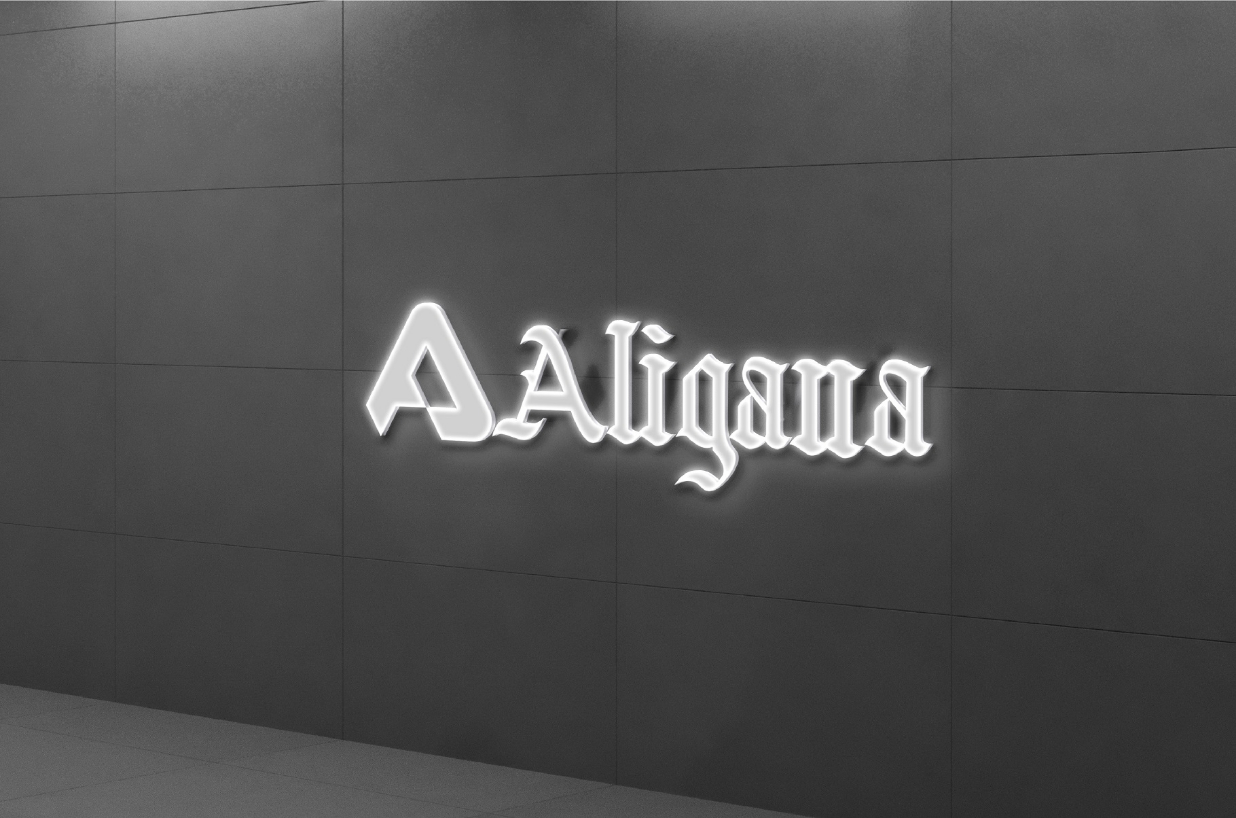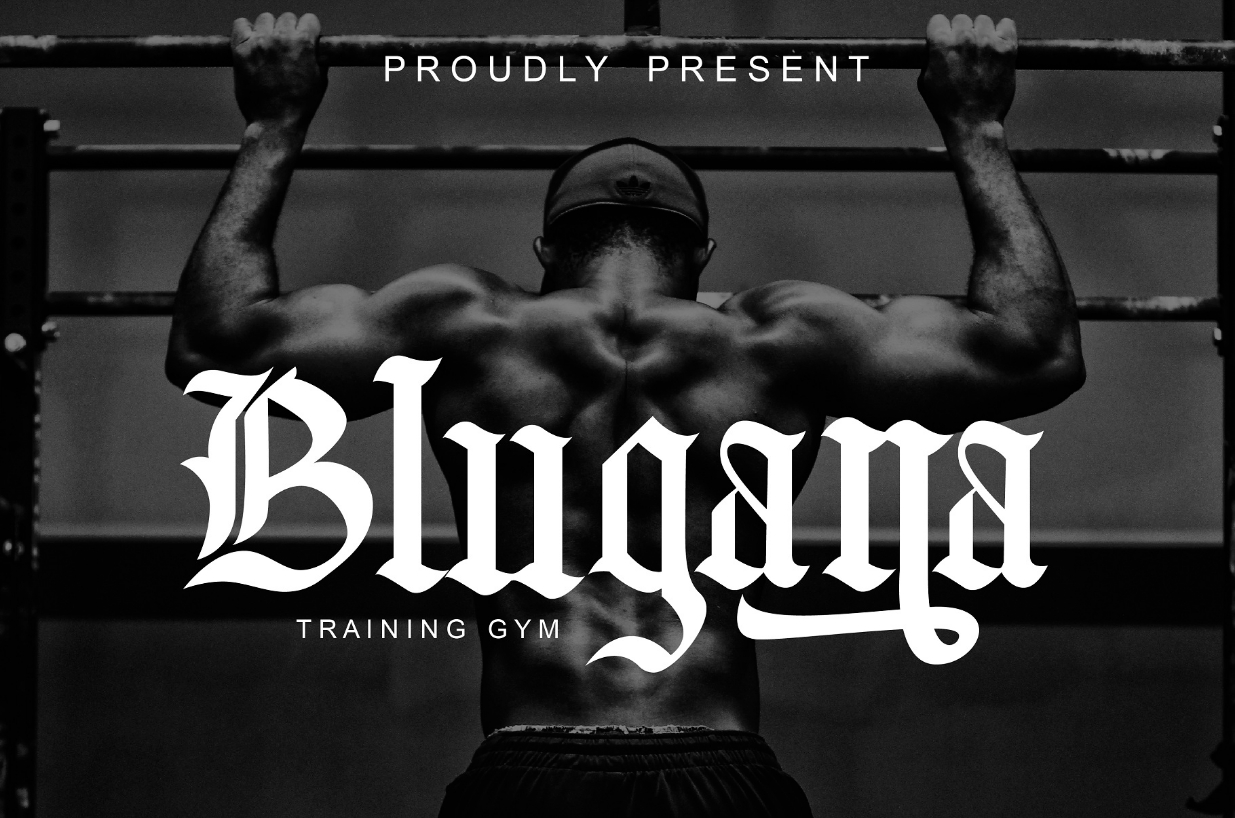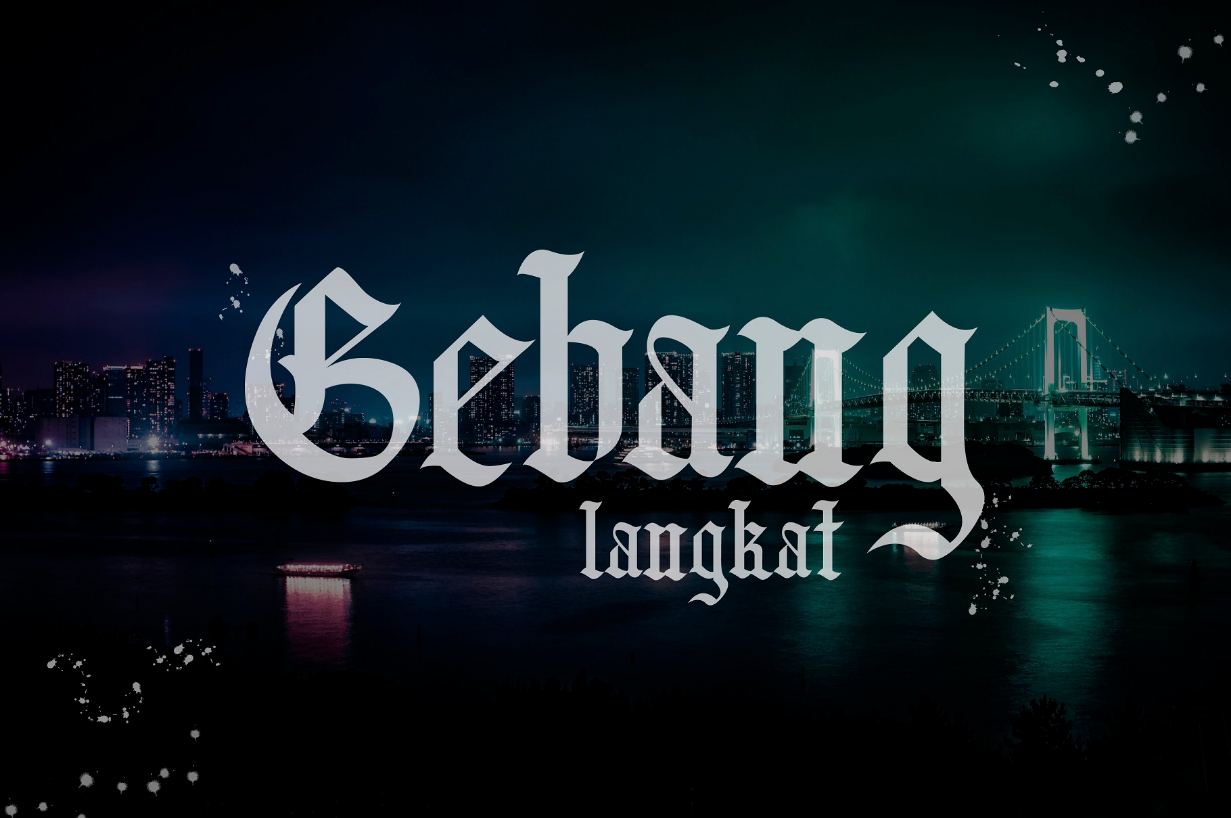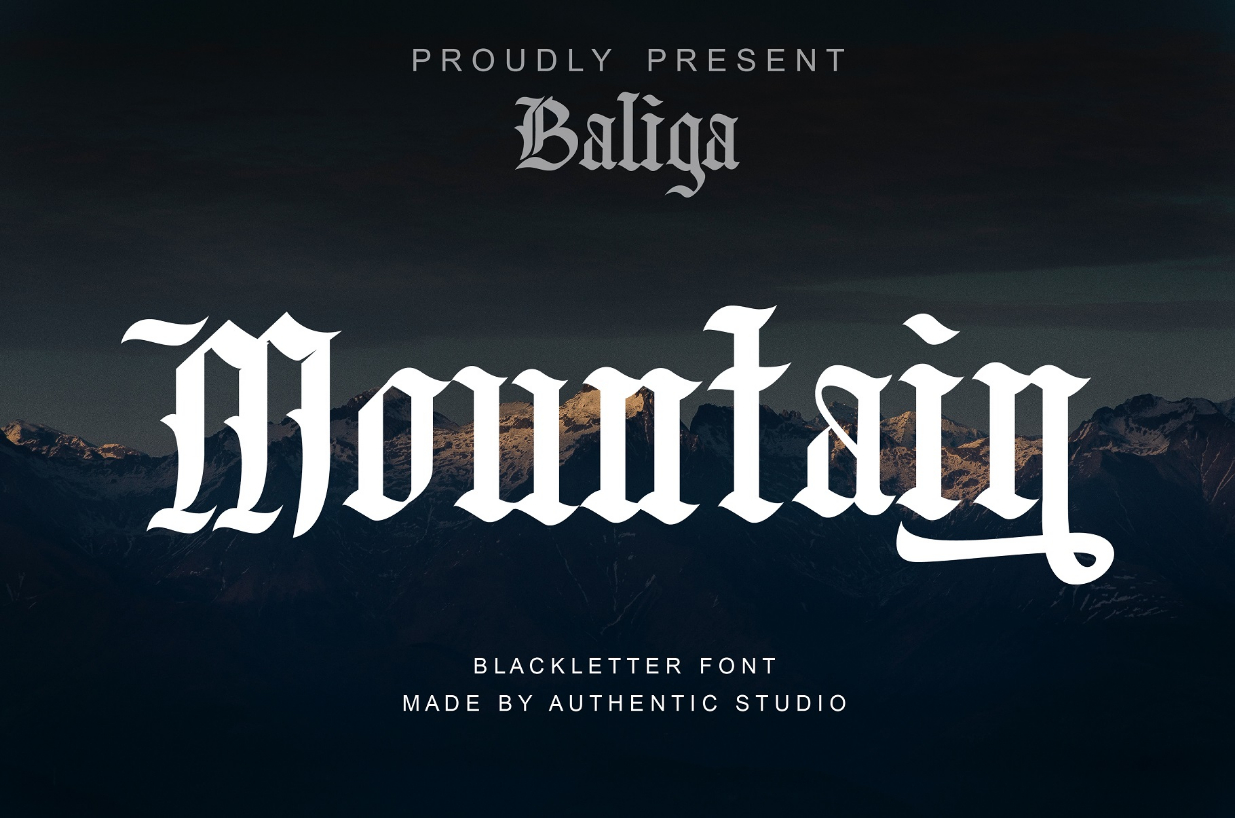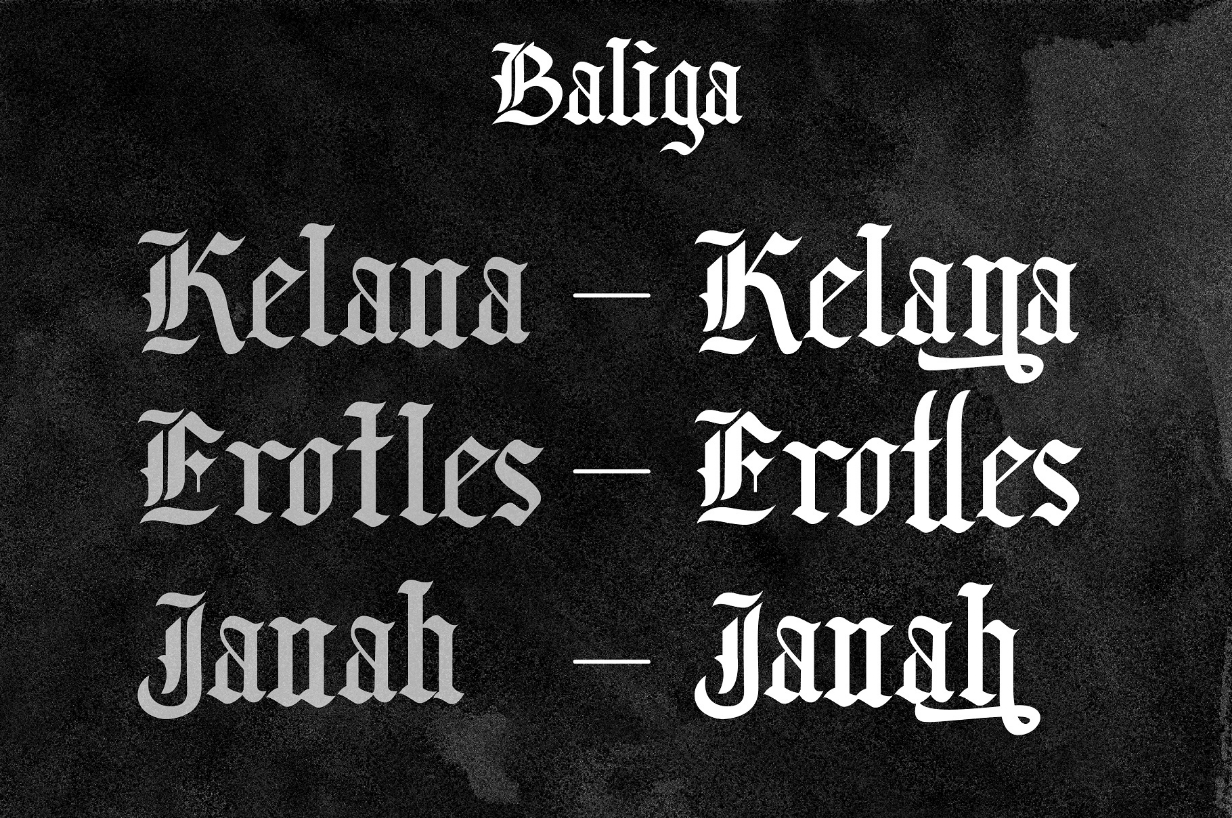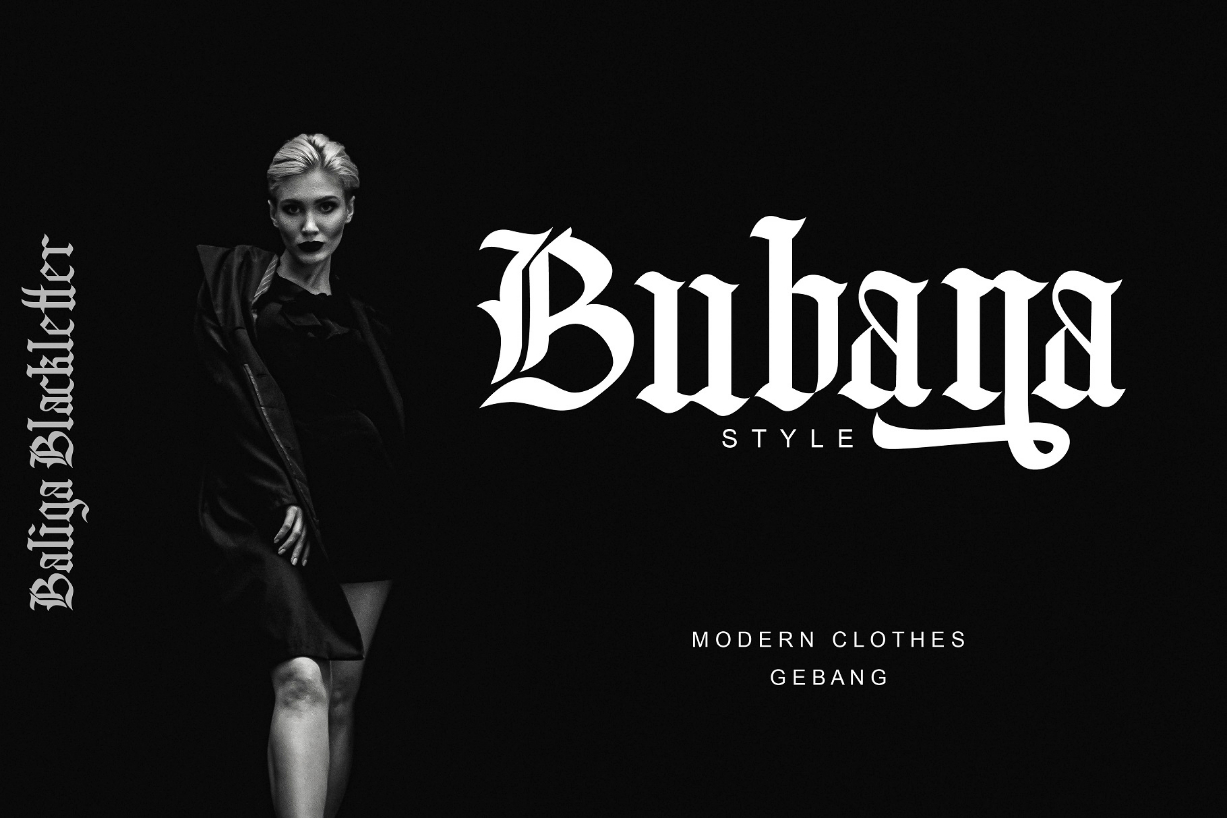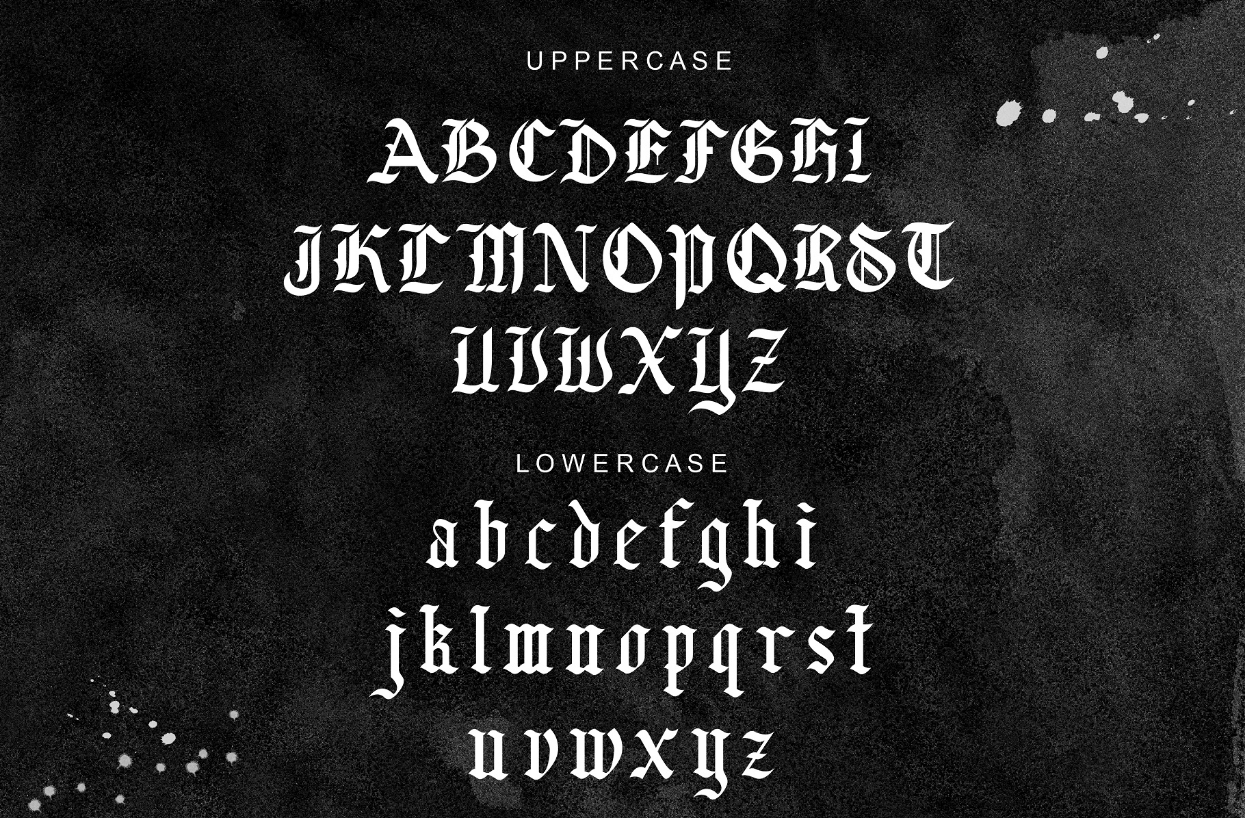
Baliga Font
About Baliga Font
Baliga is a gothic-inspired blackletter font that always looks cool and dramatic. It is great for adding an edge to your designs.